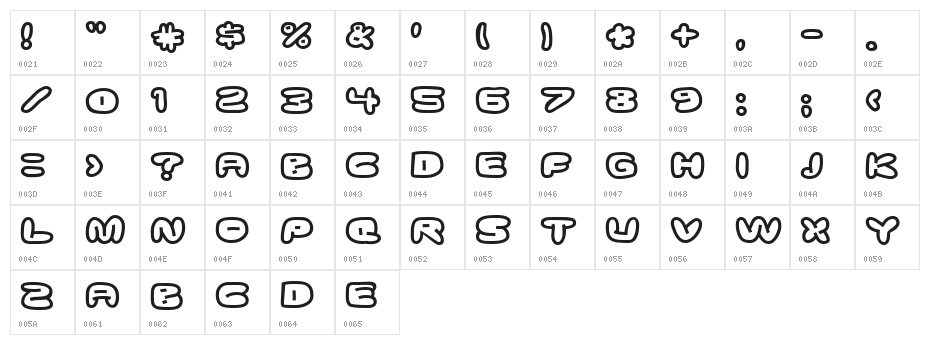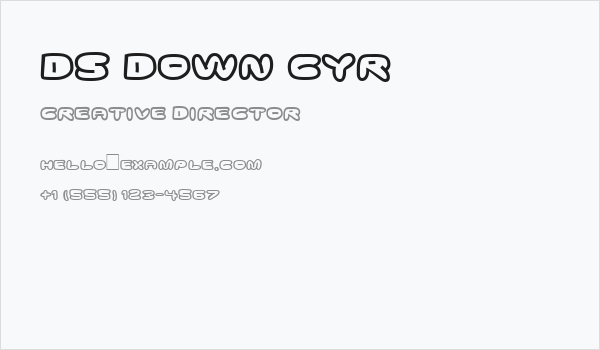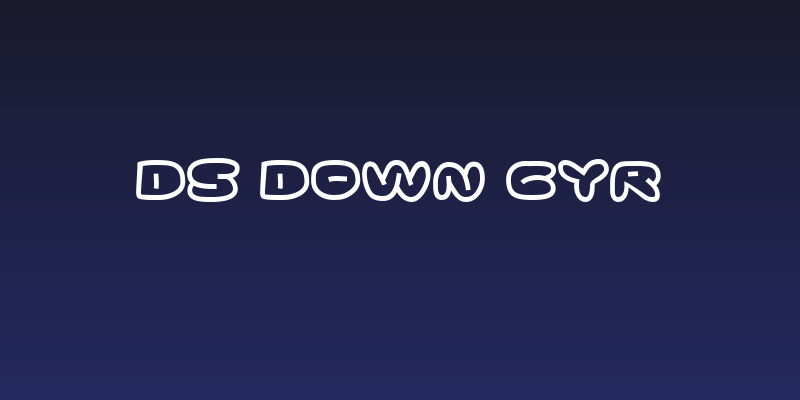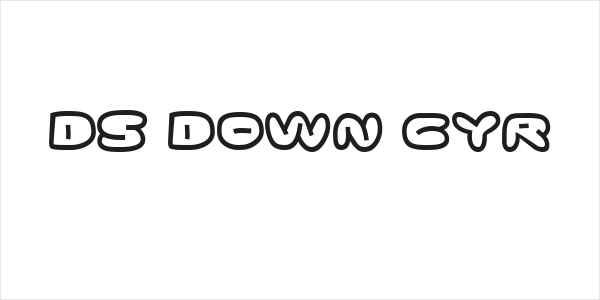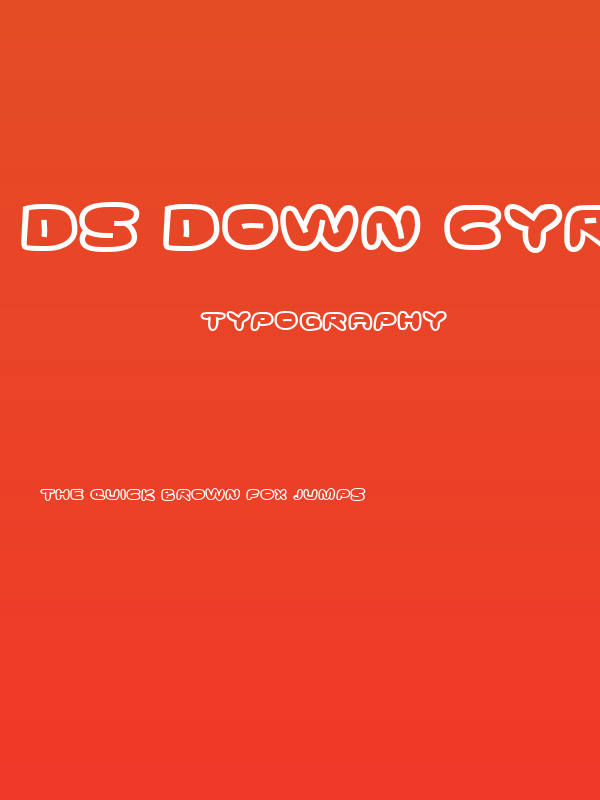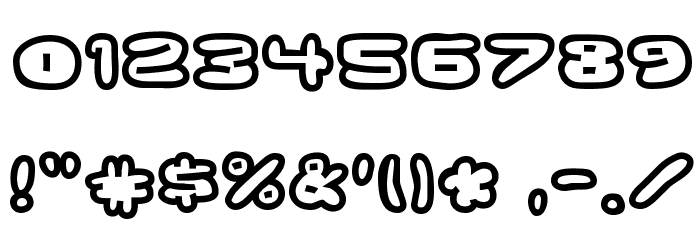
DS Down Cyr Font
DS Down Cyr Description
This font features a playful and bold design with rounded, bubble-like characters. Each letter and number is outlined, creating a hollow effect that adds depth and dimension. The characters are evenly spaced, maintaining a consistent flow across the text. The style is reminiscent of graffiti or comic book lettering, making it ideal for projects that require a fun and informal touch. The font's unique appearance is both eye-catching and legible, ensuring it stands out in various applications.
| Overall Style | Playful, Fun, Comic |
| Use Case | Headlines, Posters, Branding |
| Proposed Projects | Ideal for children's books, comic strips, posters, and playful branding projects. |